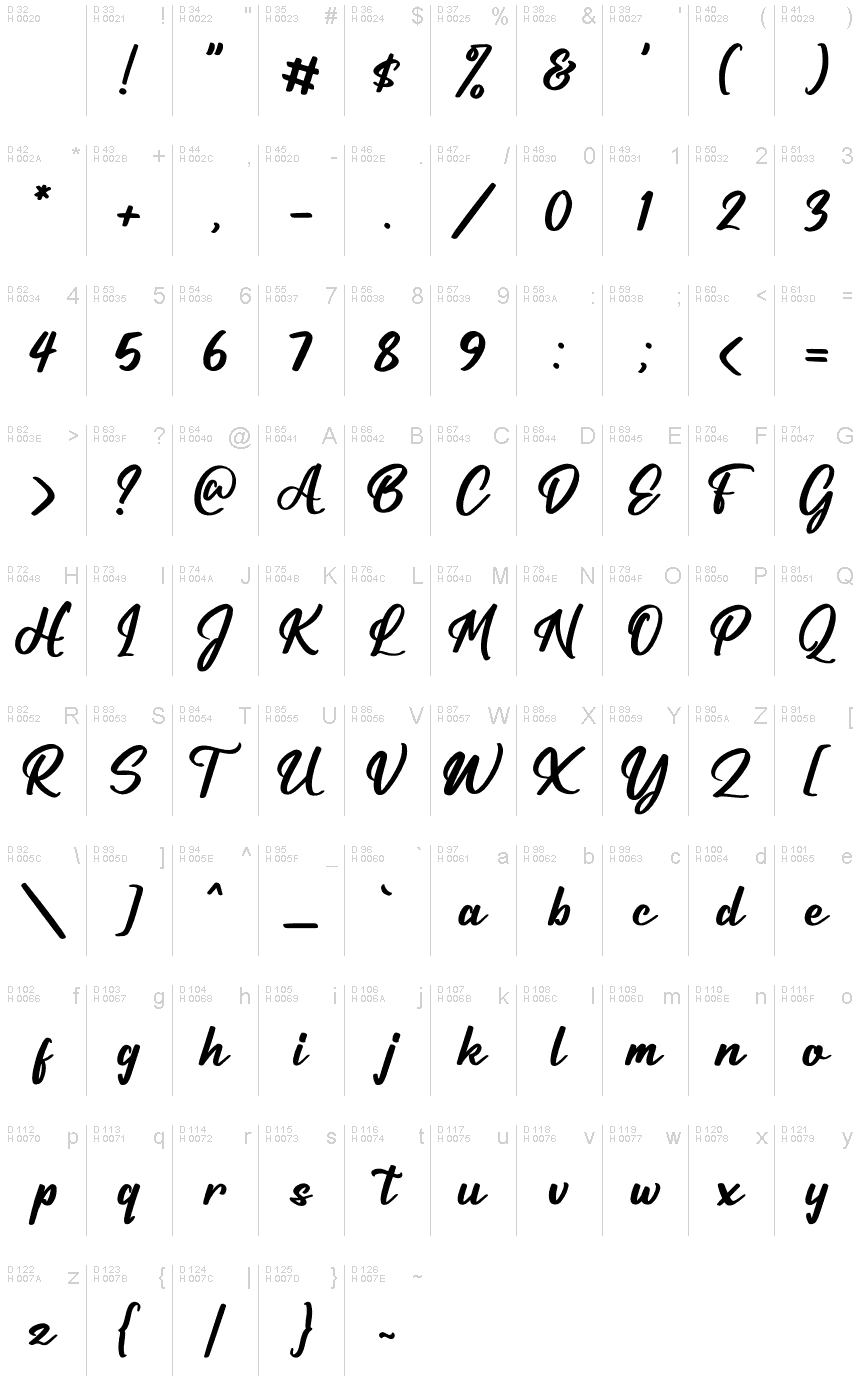
Kamehaya Bintang
Introducing Kamehaya Bintang, a bold, handwritten font by Perspectype Studio. Perfect for creating unique logos, invitations, posters and other creative projects with a personal touch.